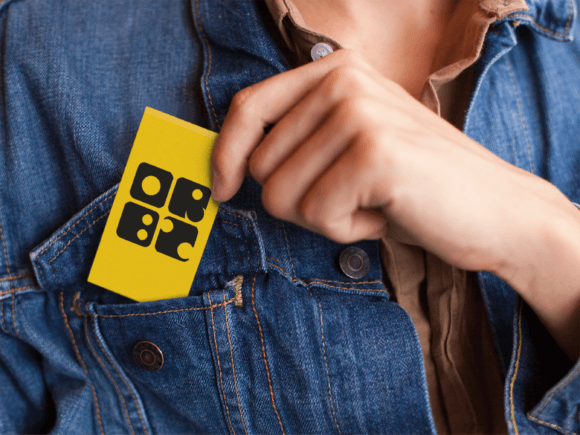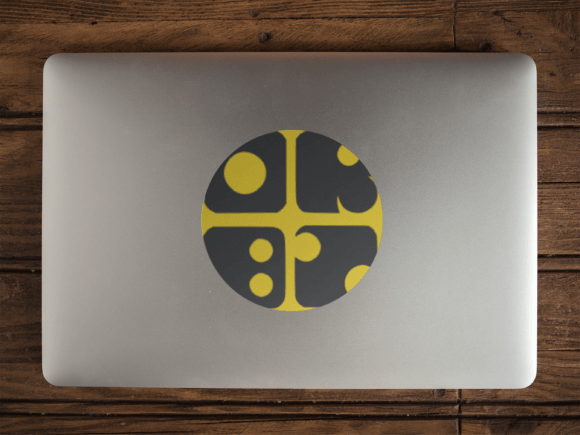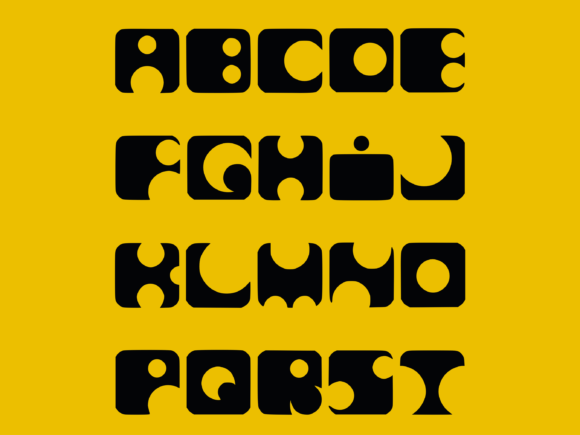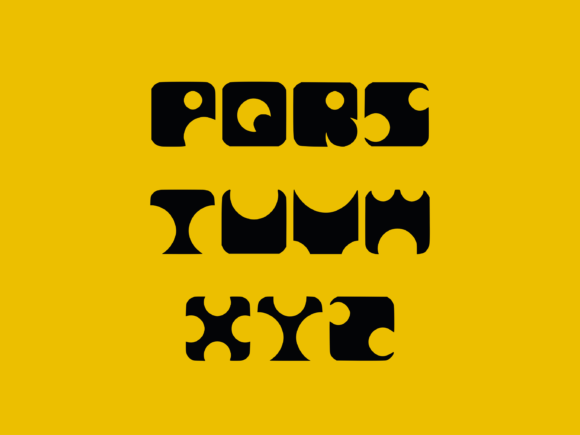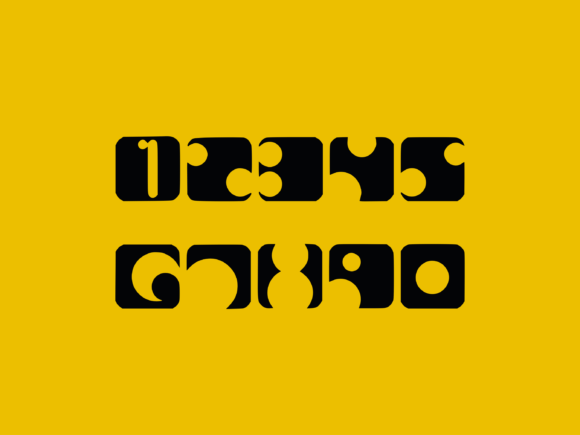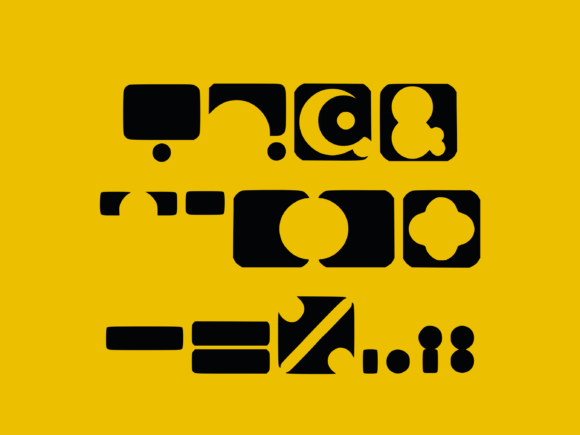
Introduction to Orbz Font
Orbz is a captivating display font that seamlessly blends the fundamental shapes of squares and circles to create a harmonious, modern aesthetic.
This typeface is a testament to the elegance of simplicity, where the squareโ€™s structured precision meets the circleโ€™s fluidity Each character exudes a sense of balance and innovation, making Orbz the perfect choice for projects that demand a contemporary, yet versatile, design element.
Key Features of Orbz Font